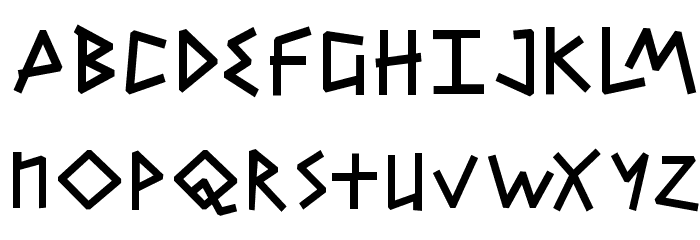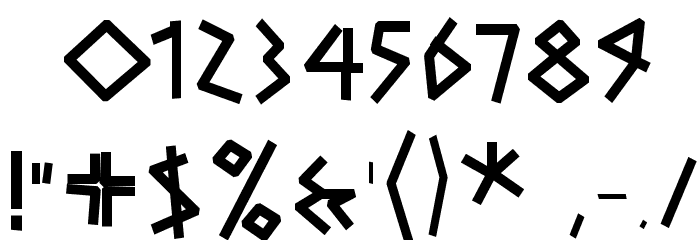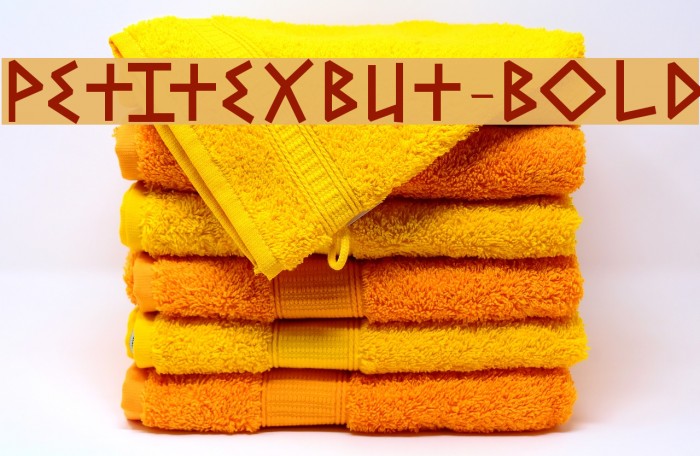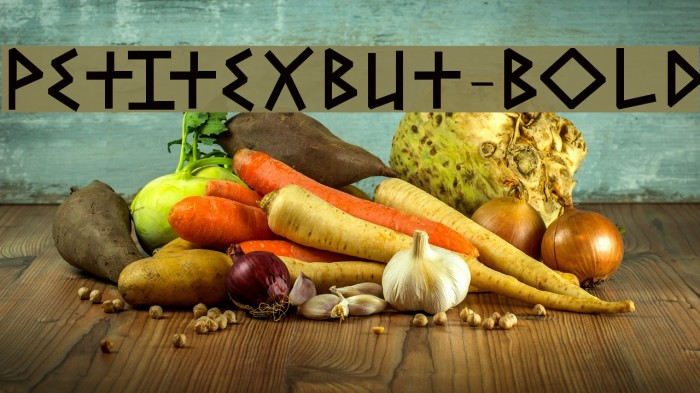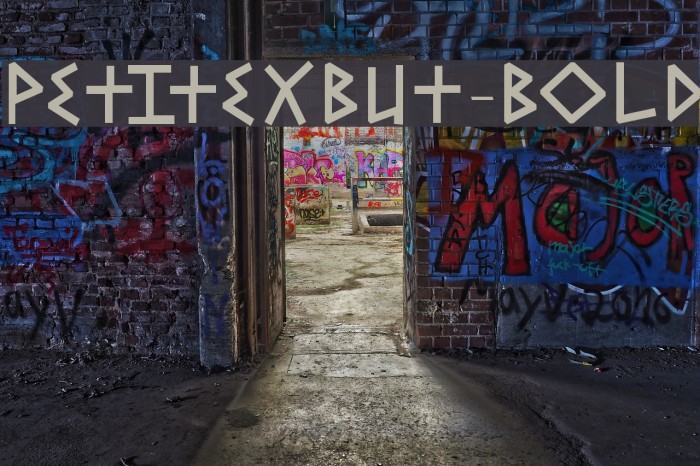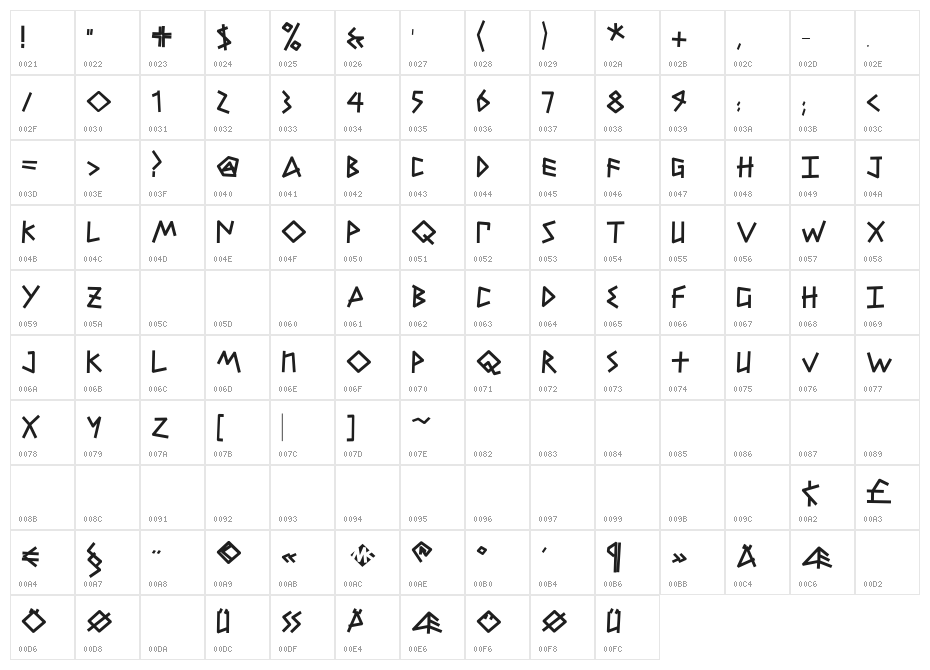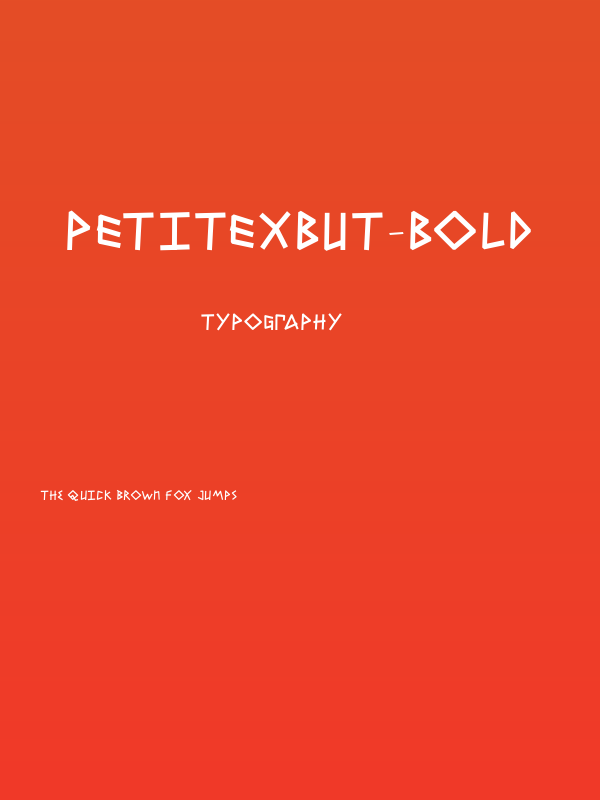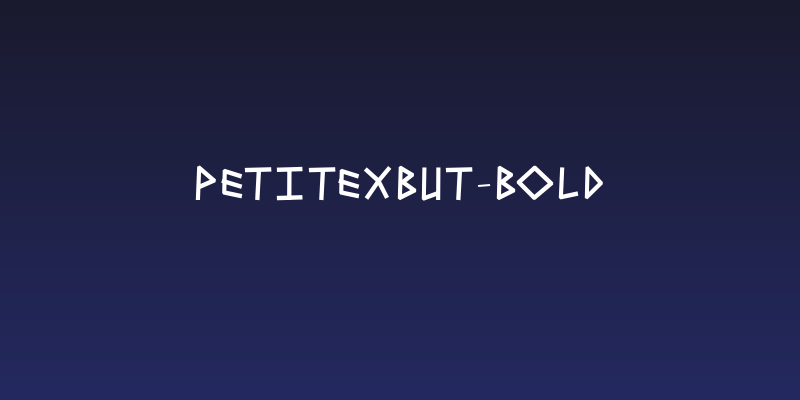
PetitexBut-Bold Font
This font exhibits a bold and angular style with a distinct geometric influence. The characters are crafted with sharp edges and a slightly irregular form, giving it a unique and playful appearance. The uppercase and lowercase letters maintain a consistent height, while the numbers and special characters follow the same angular design. The strokes are thick and uniform, contributing to a strong visual impact. This font's quirky and modern aesthetic makes it suitable for creative and unconventional projects.
A bold, angular font with a geometric and playful style.
- Proposed Projects: Ideal for posters, album covers, video game graphics, and branding that requires a modern and edgy look.